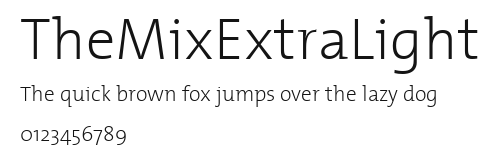
TheMixExtraLight Preview
About TheMixExtraLight.ttf
TheMixExtraLight.ttf is a modern, elegant sans-serif font designed for ultimate readability and visual harmony. Perfect for branding, headlines, web design, and print materials.